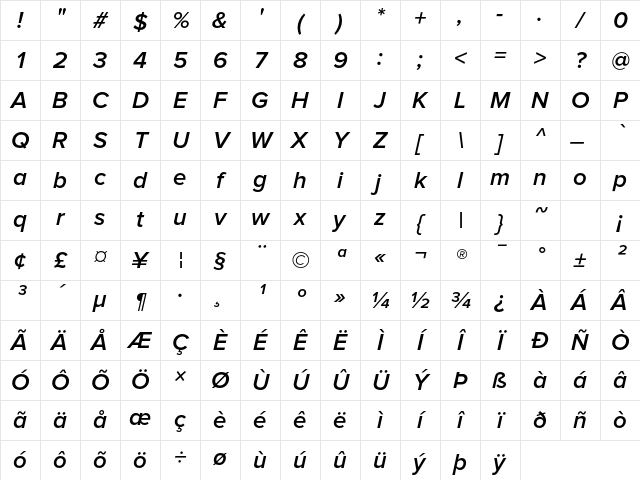
Proxima Nova Semibold Italic
Designer: Mark Simonson
Design Context for Proxima Nova
Proxima Nova is a composed and adaptable typeface that performs quietly and consistently across a wide range of design contexts. The slanted form adds forward momentum and visual energy. Its bold stroke weight gives it real presence on the page.
Pro Tip: Use Proxima Nova for emphasis, pull quotes, and subheadings where its slanted energy can add rhythm to the layout.